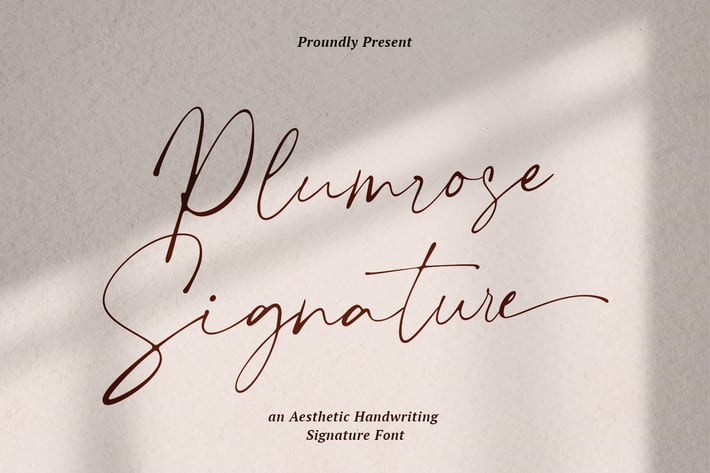
Plumrose Signature
Introducing the new Plumrose Signature Font the new Aesthetic Handwritting Font, for those of you who need a chic, elegant, modern touch for your design needs.
Plumrose Signature Aesthetic Handwritting Font, is built with ligatures, alternative start and end swashes, numbers, punctuation marks, and also multilanguage.